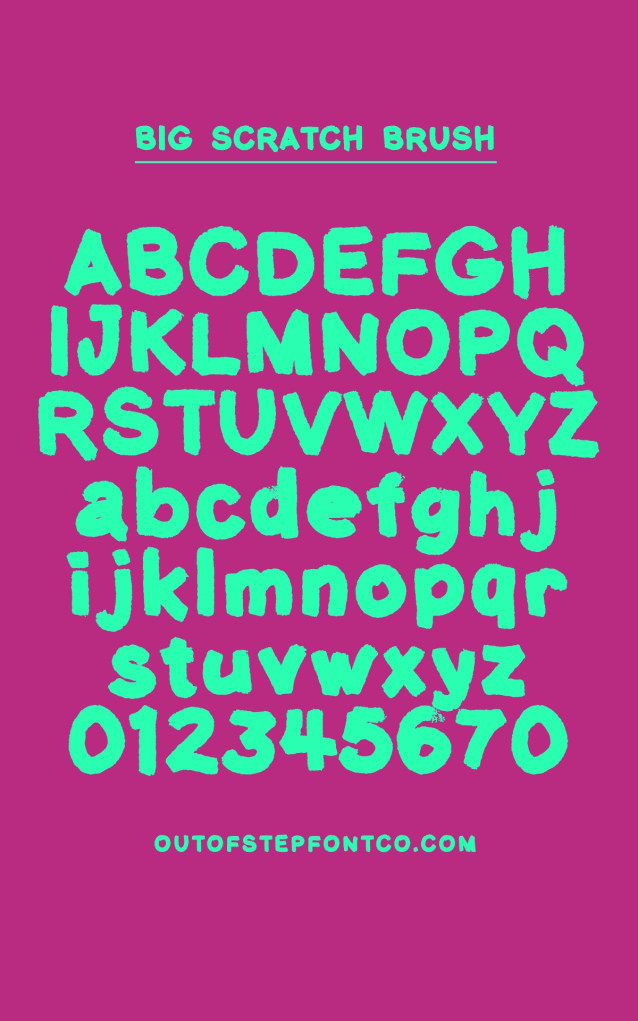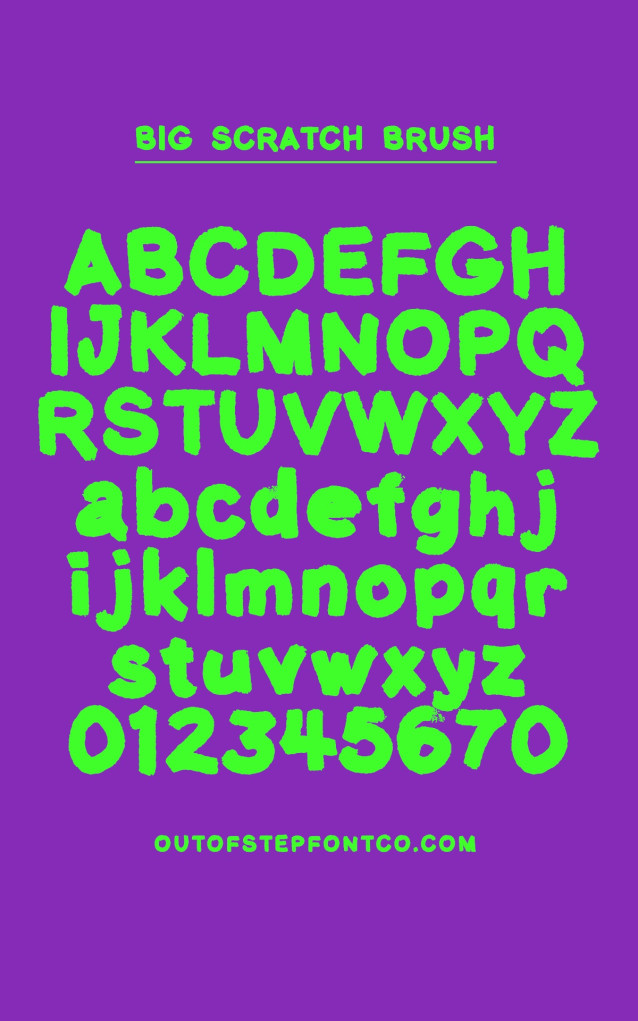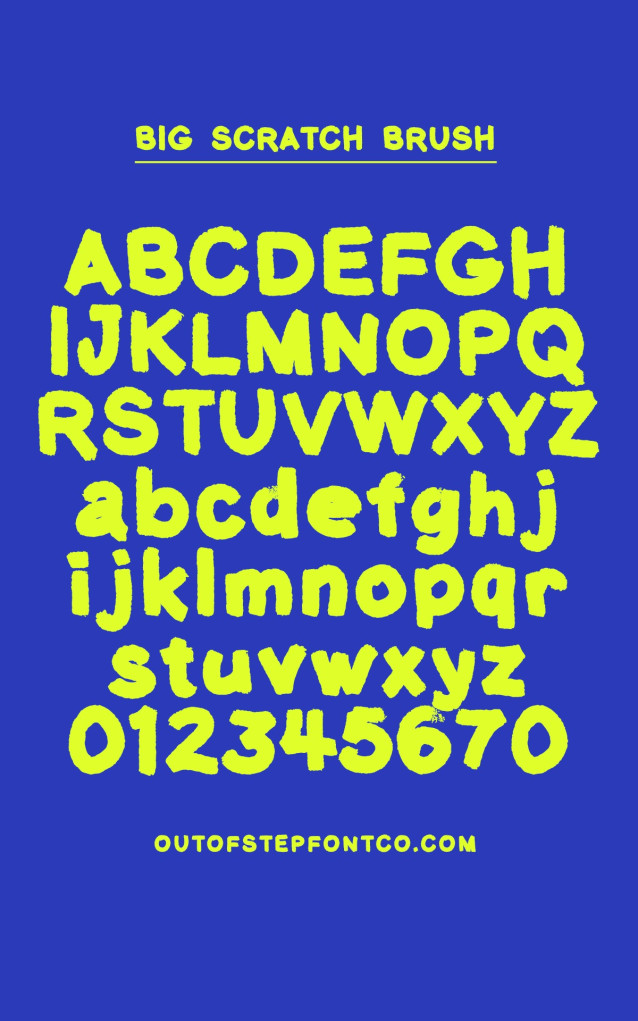
Big Scratch Brush Font
Big Scratch Brush Font is a big, thick, naturally dry brush font. It has a really raw texture, and uses a lot of points/curves. For powerful computers only, this is a big font.